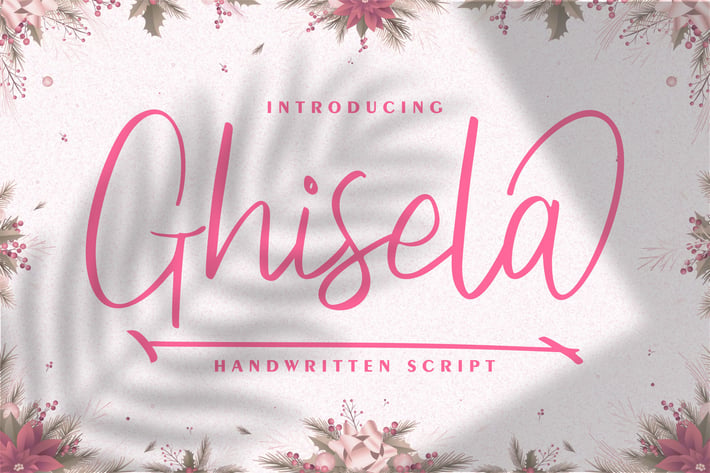
Ghisela | Handwritten Font
Ghisela | Handwritten Font with a calligraphy style, So beautiful on invitation like greeting cards, branding materials, business cards, quotes, posters, and more!